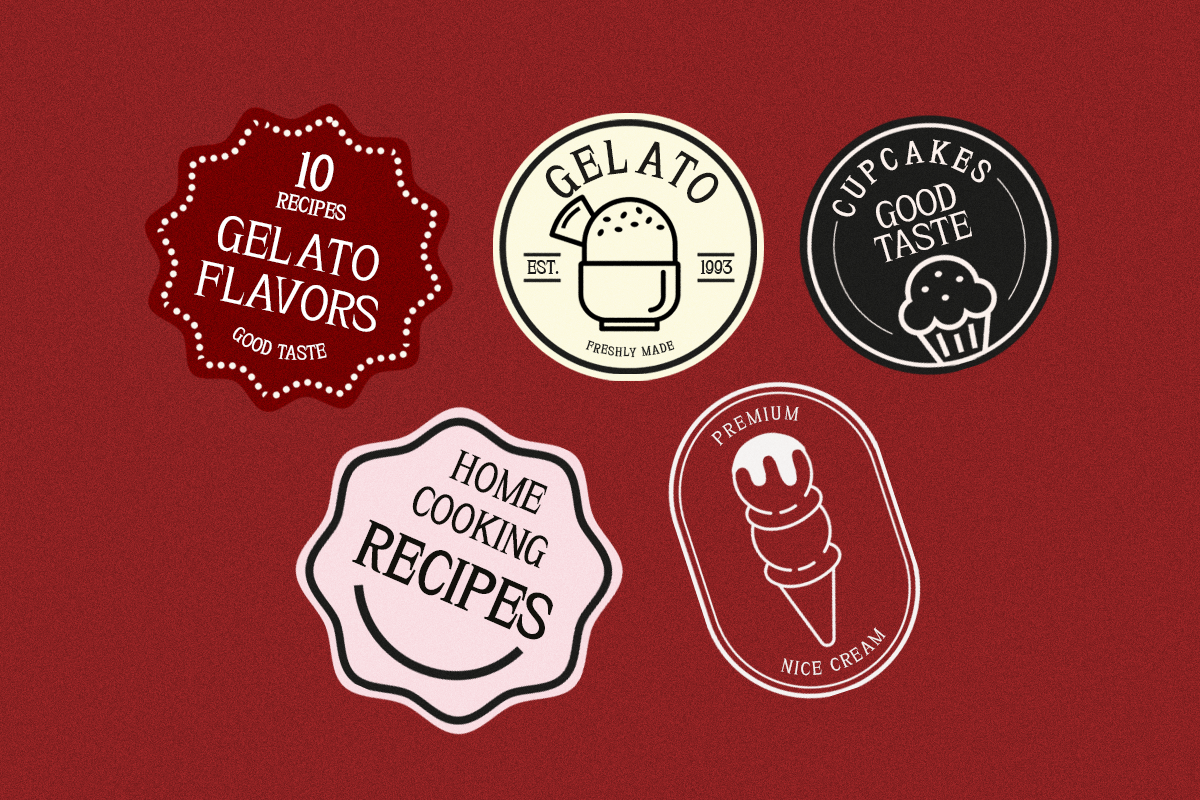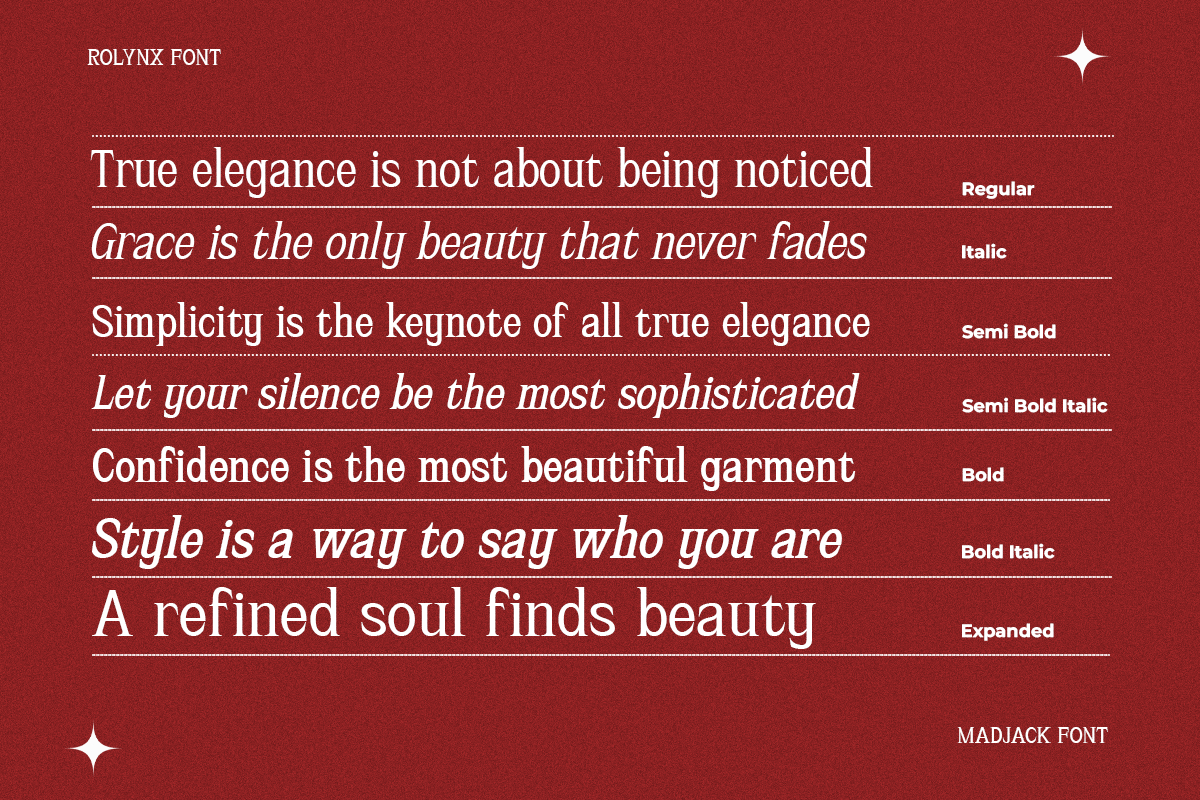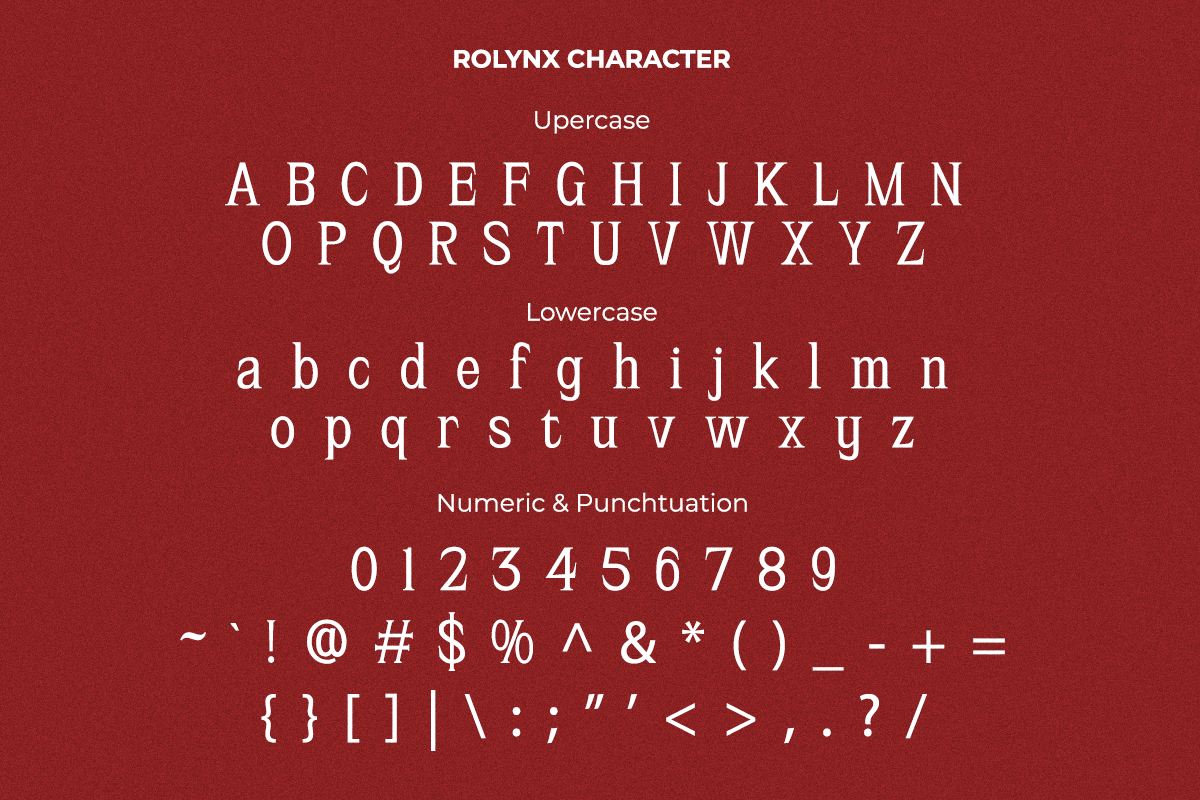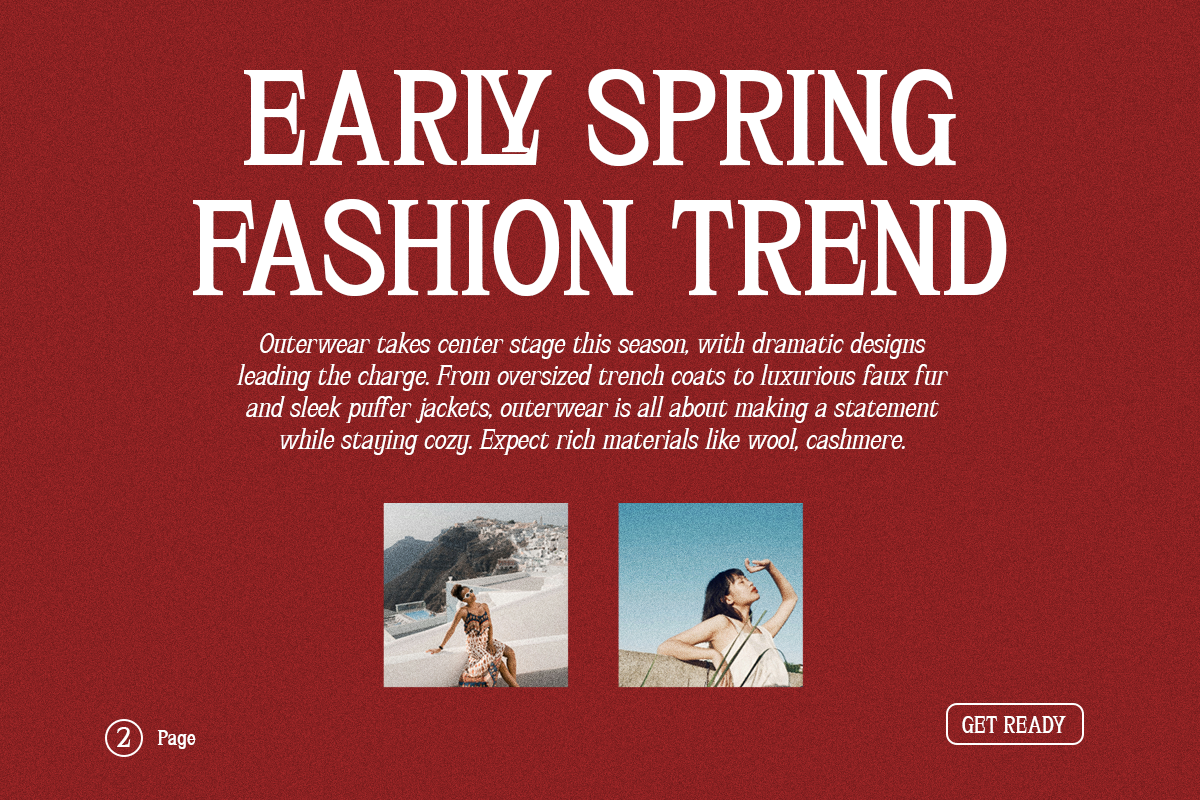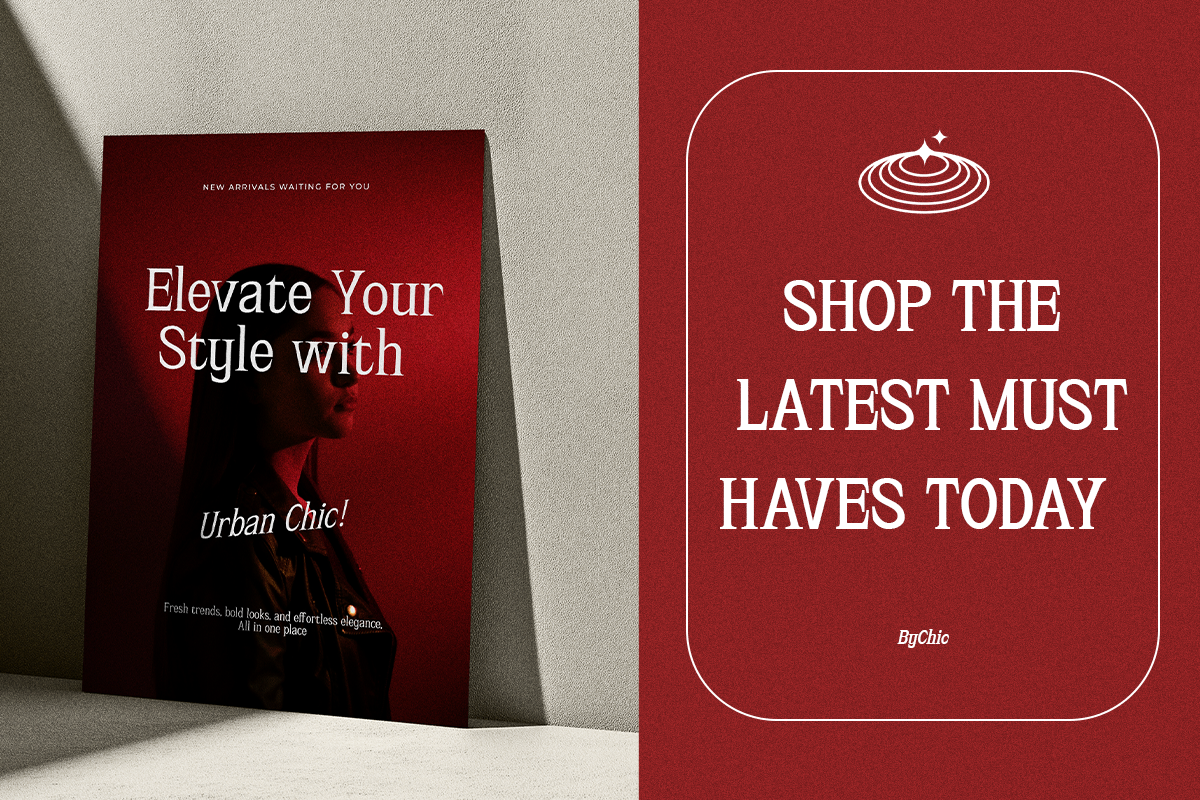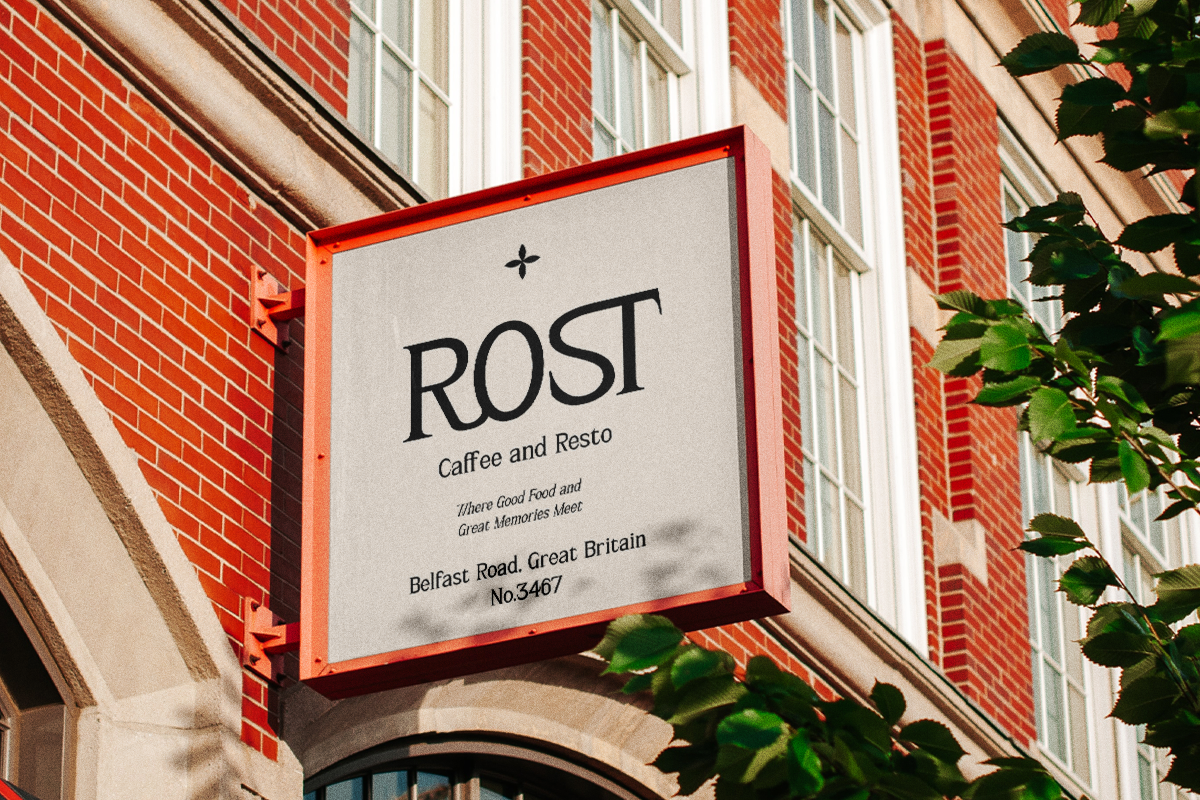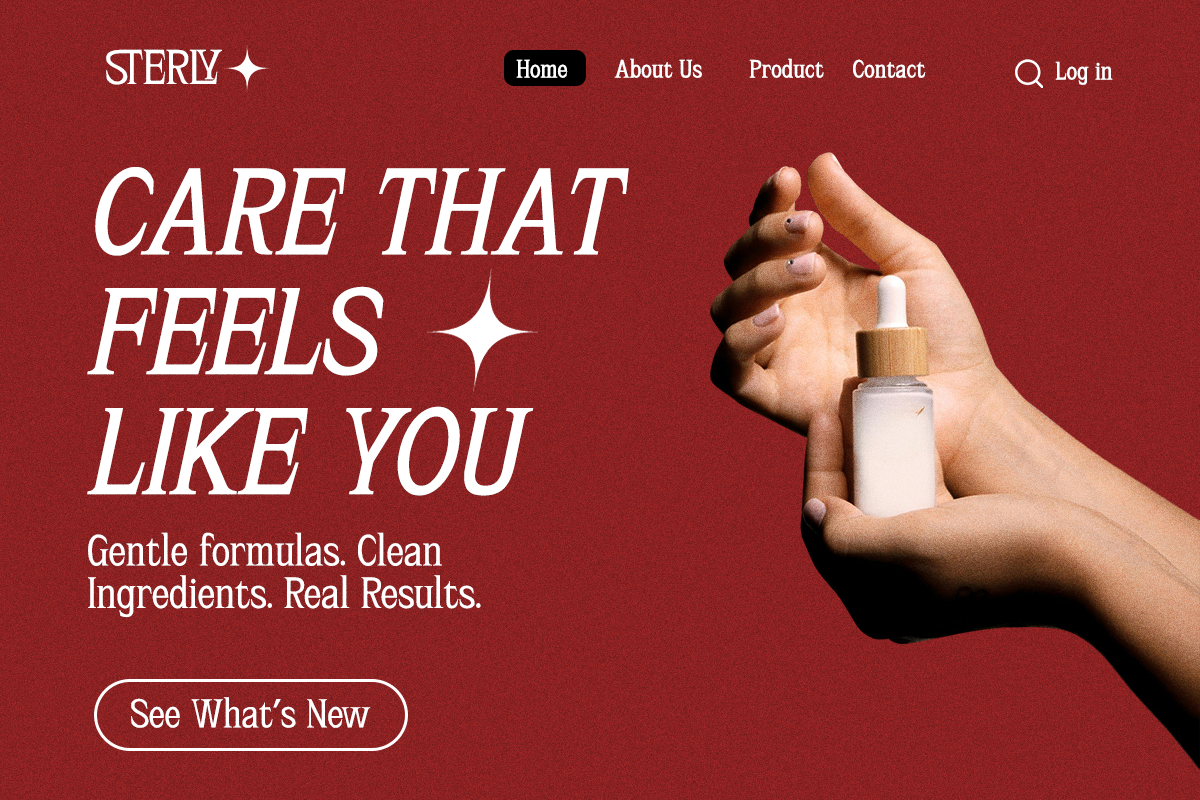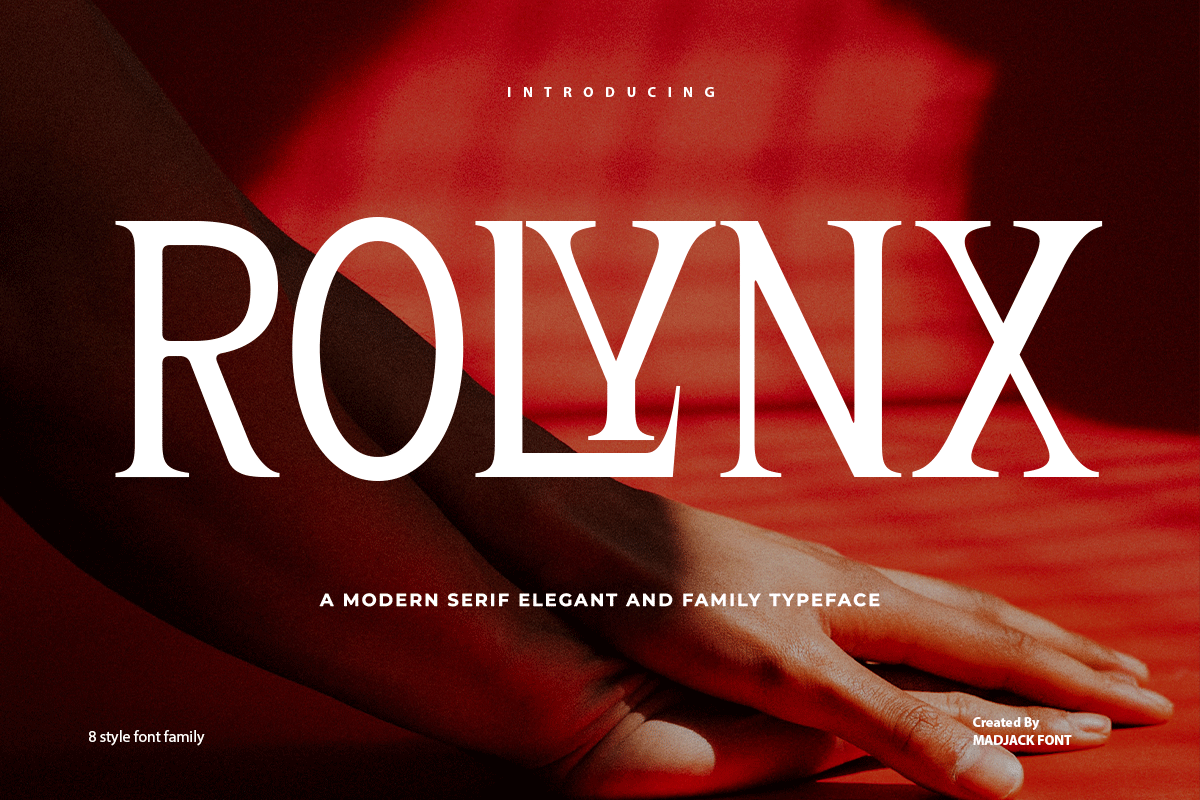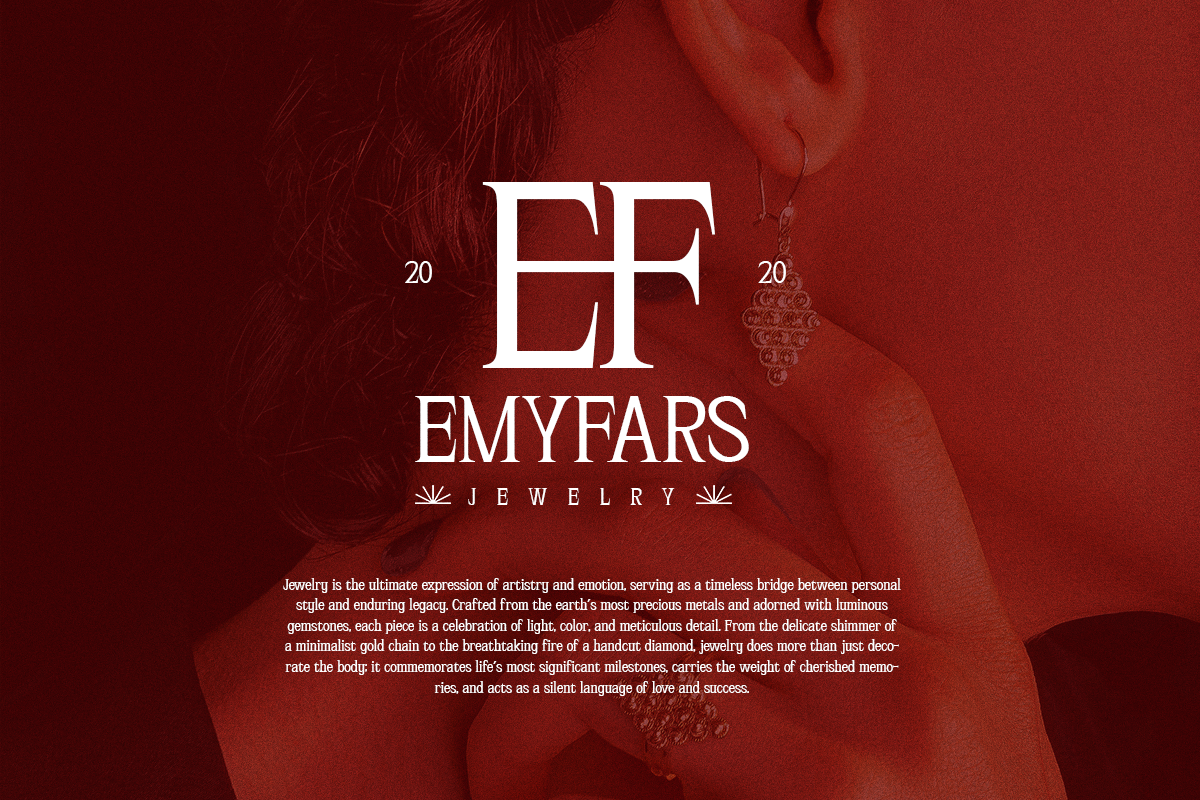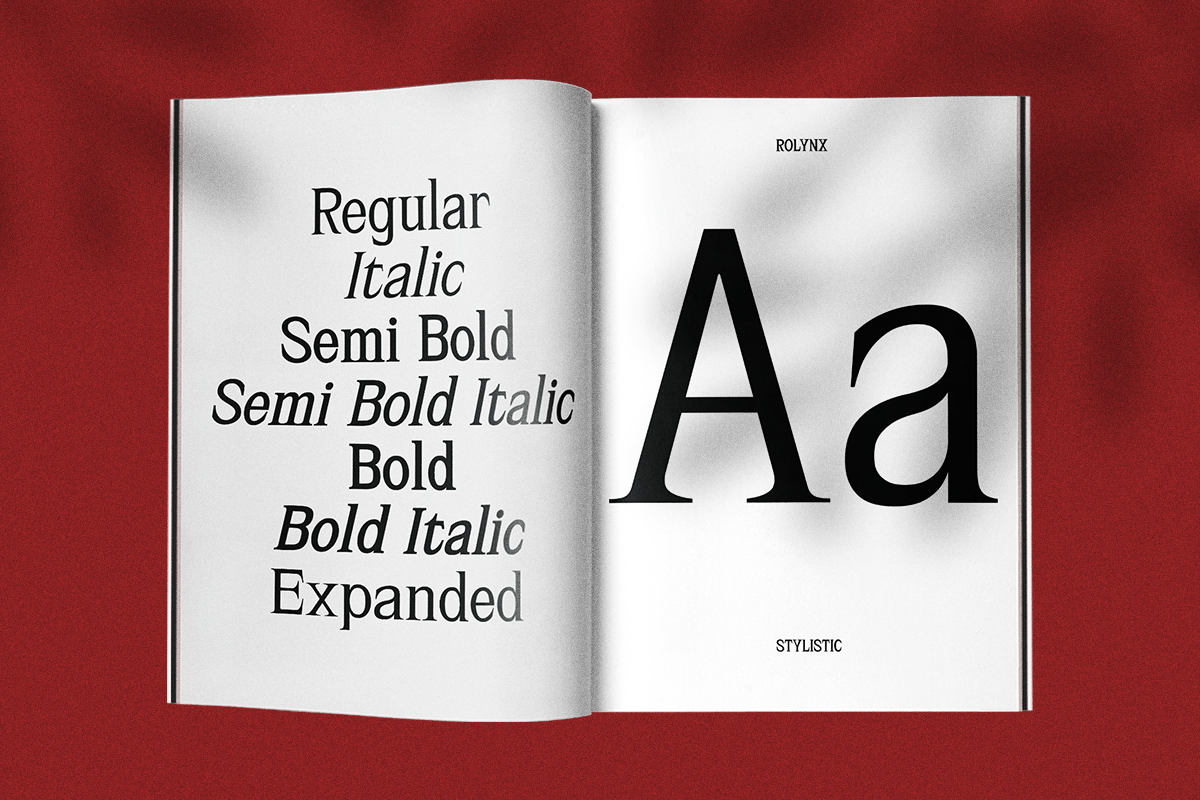
Rolynx- 8 font family
We're proud to present Rolynx, a modern and classic serif typeface from Storytype, with a unique style and modern look. This typeface is perfect for elegant and luxurious logos, book or movie title designs, fashion brands, magazines, apparel, calligraphy, quotes, and much more.